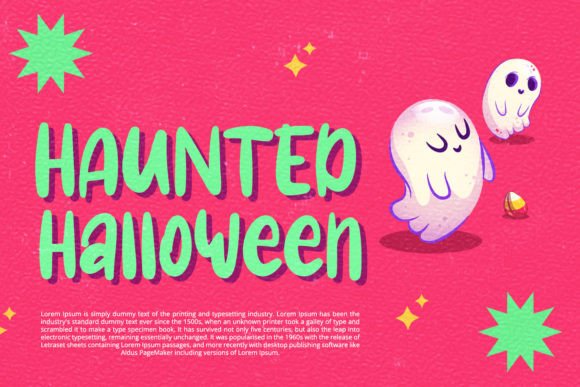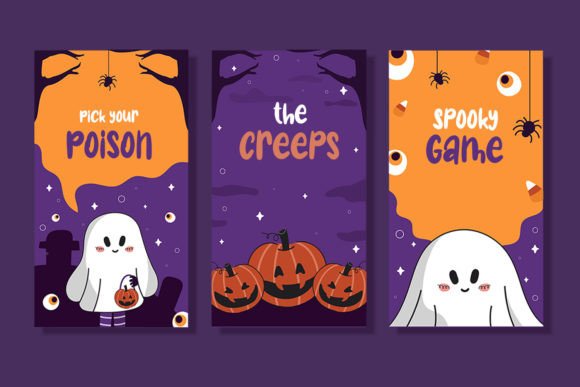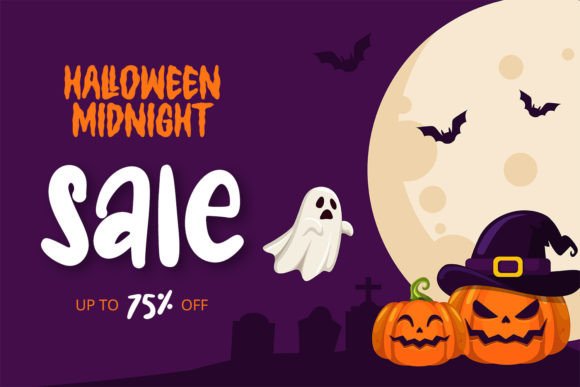
Introduction to Magic Candy Font
As a designer, have you ever found yourself stuck in a creative rut, searching for the perfect font to bring your project to life? We’ve all been there, scouring the depths of font libraries, only to find something that’s almost, but not quite, what we’re looking for. But what if I told you that there’s a font that’s about to make all your design dreams come true?
Enter the Magic Candy Font, a stunning display font that’s as sweet as it is stylish. With its cute and playful feel, this font is perfect for designers looking to add a touch of whimsy to their creative projects. Whether you’re working on a branding project, designing a logo, or creating a poster for a special event, the Magic Candy Font is sure to be a valuable addition to your design resource arsenal.
Key Features of Magic Candy Font
- Unique, hand-drawn design with a whimsical and playful feel, perfect for creative projects that require a touch of magic.
- Includes a range of characters, including uppercase and lowercase letters, numbers, and punctuation marks, making it a comprehensive design resource.
- Designed with a large x-height, making it easily readable at various sizes and resolutions, from 72 dpi to 300 dpi.
Honest Review: Magic Candy Font
I recently had the chance to work with the Magic Candy Font, and I must say it’s a delightful addition to any creative project. The free download was a great starting point, and I was immediately impressed with the high quality of the font.
- ✨ The font’s playful and whimsical design makes it perfect for adding a touch of magic to your designs.
- ✨ The transparent background allows for seamless integration with any background image or color.
- ✨ The font is highly customizable, making it easy to adjust the size, color, and style to fit your design needs.
- ⚠️ The font may not be suitable for formal or professional designs, as it can come across as too playful or childish.
Overall, I’m quite impressed with the Magic Candy Font. It’s a great design resource for anyone working on a creative project that requires a touch of magic and whimsy. With its high quality and customizability, it’s a great addition to any designer’s toolkit.
Tips for Getting the Most Out of Magic Candy Font
To get the most out of Magic Candy Font, use it in combination with other design elements to create visually appealing designs. Experiment with different font sizes, colors, and backgrounds to achieve the desired look.
Common Use Cases for Magic Candy Font
Common use cases for Magic Candy Font include creating social media graphics, designing brochures, and creating presentations. Its high-quality appearance and transparent background make it ideal for use in a variety of creative projects.